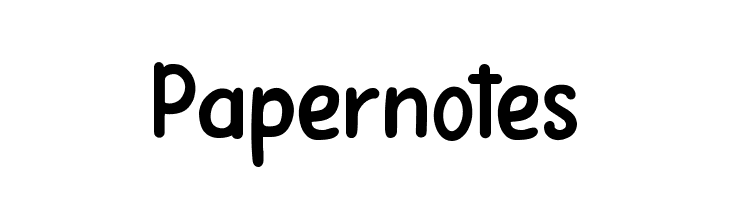
A playful, rounded font with a handwritten feel, perfect for casual and creative projects.
A bold, playful font with rounded edges and a friendly appearance.
A playful, bold font with rounded edges and a hand-drawn feel.
A playful, handwritten font with irregular strokes and a casual style.